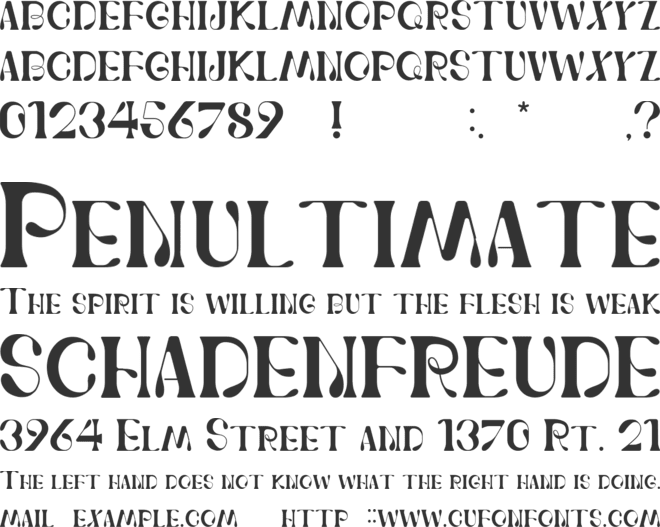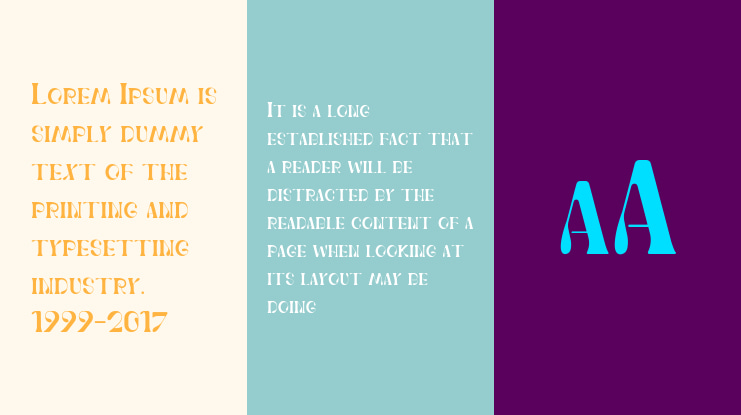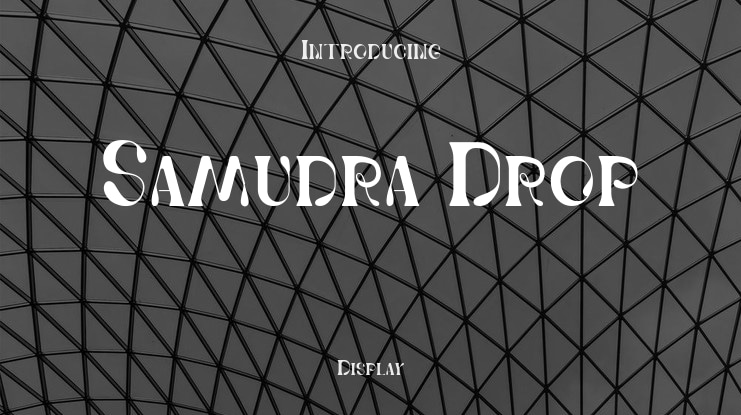
Samudra Drop Font
Samudra Drop is a fluid display font inspired by water — droplet curves and wave-like rhythm give its letterforms a cool coastal energy. Retro psychedelic elegance meets ocean curves, making it a refreshing choice for beach and pool party flyers, beverage branding, tropical resort signage, summer festival posters, and laidback cocktail menus.